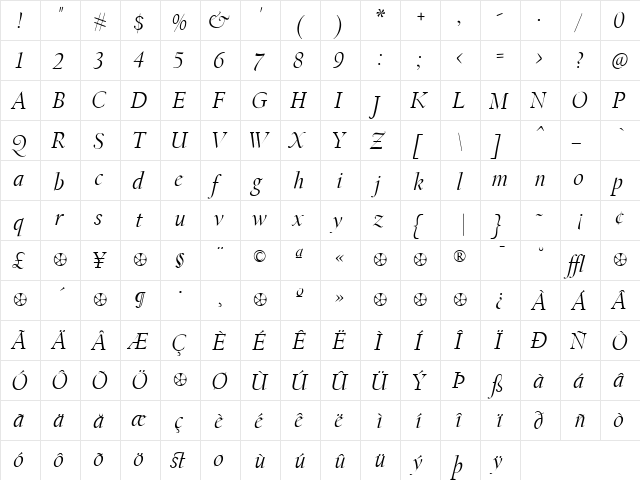
CalifornianDisplay Italic
Design Context for CalifornianDisplay Typeface
CalifornianDisplay brings ornamental detail and strong personality to headlines and identities, where visual impact matters more than quiet functionality. The dynamic lean of this cut emphasises speed and emphasis in any layout.
Font Pairing: Pair with a clean neutral sans-serif for body copy to let CalifornianDisplay's character lead without overwhelming the composition.
Pro Tip: Treat CalifornianDisplay as the centrepiece of your typographic hierarchy. One strong heading set in a decorative face can carry an entire layout.